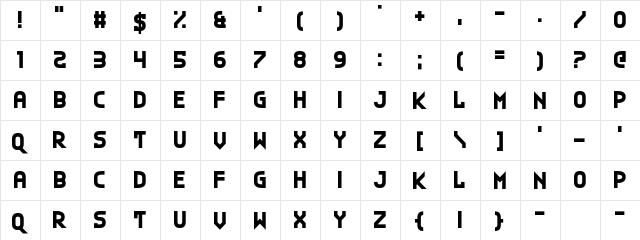
Plan G Regular
| Designer | NAL |
Design Context for Plan G Typeface
Plan G is a composed and adaptable typeface that performs quietly and consistently across a wide range of design contexts.